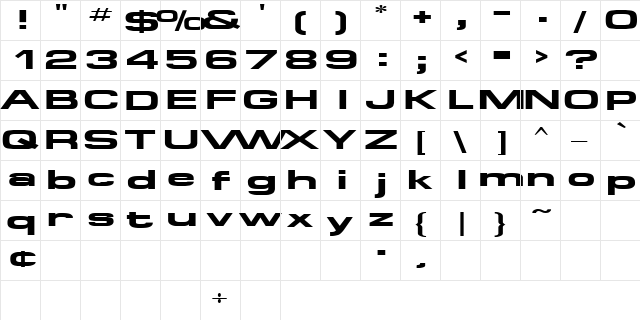
Supertouch Regular Font Preview
Supertouch Regular
Design Context for Supertouch Typeface
Supertouch is a composed and adaptable typeface that performs quietly and consistently across a wide range of design contexts.